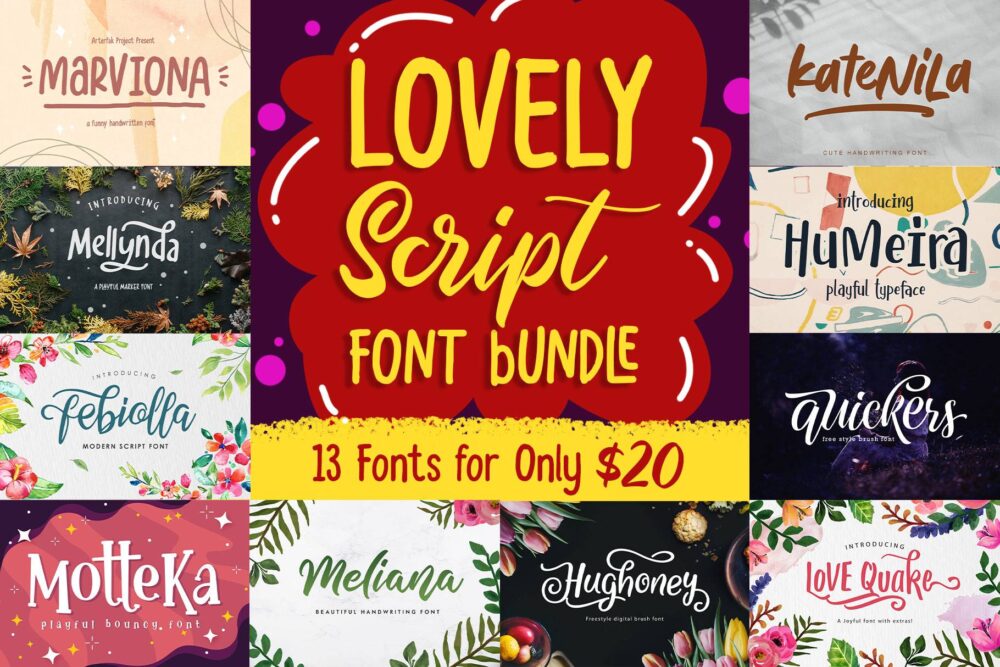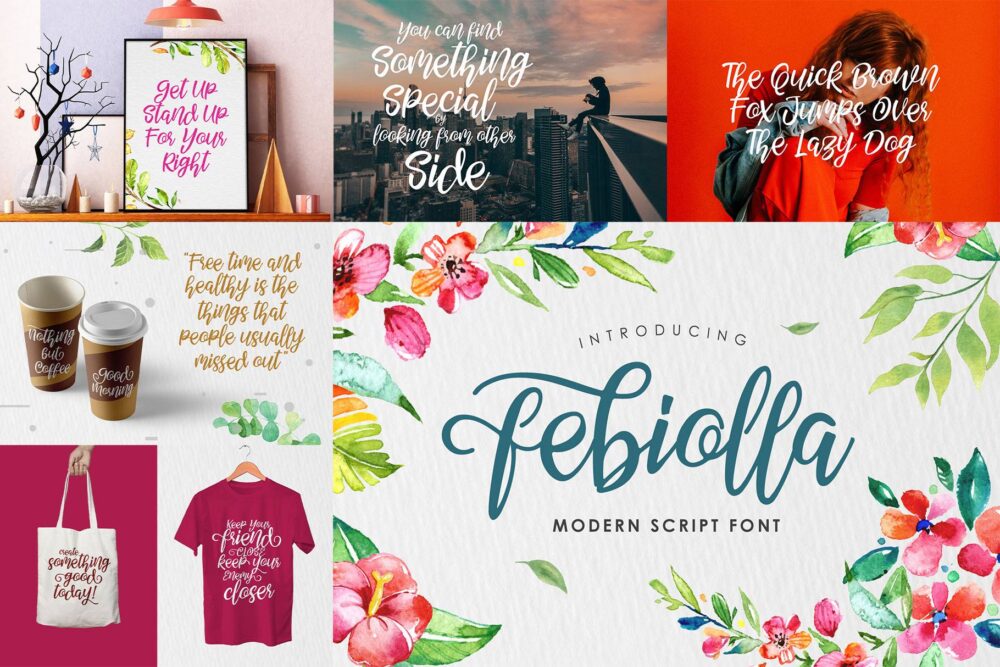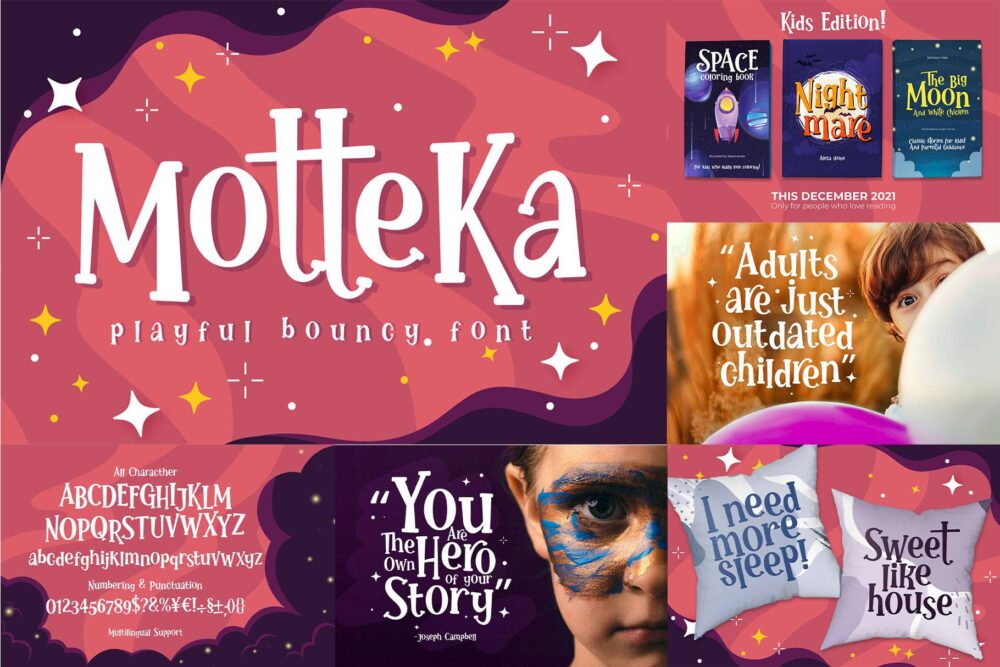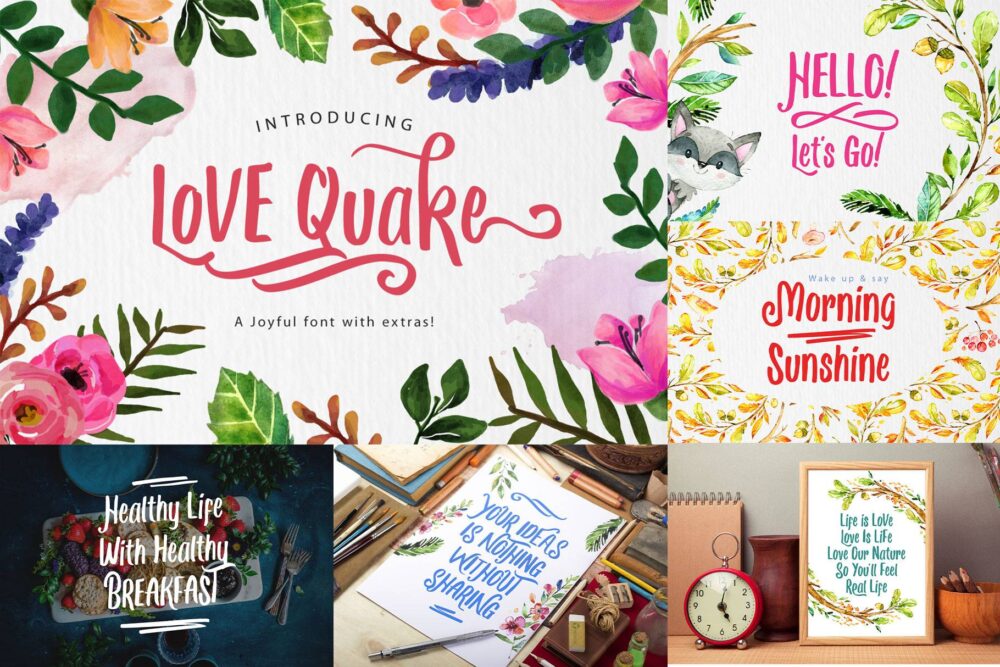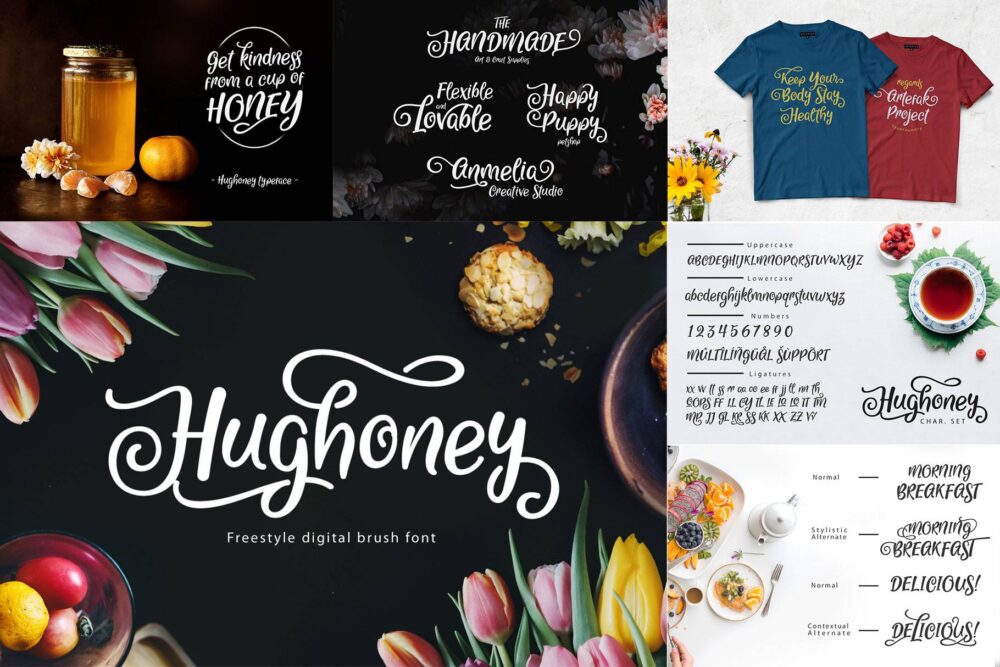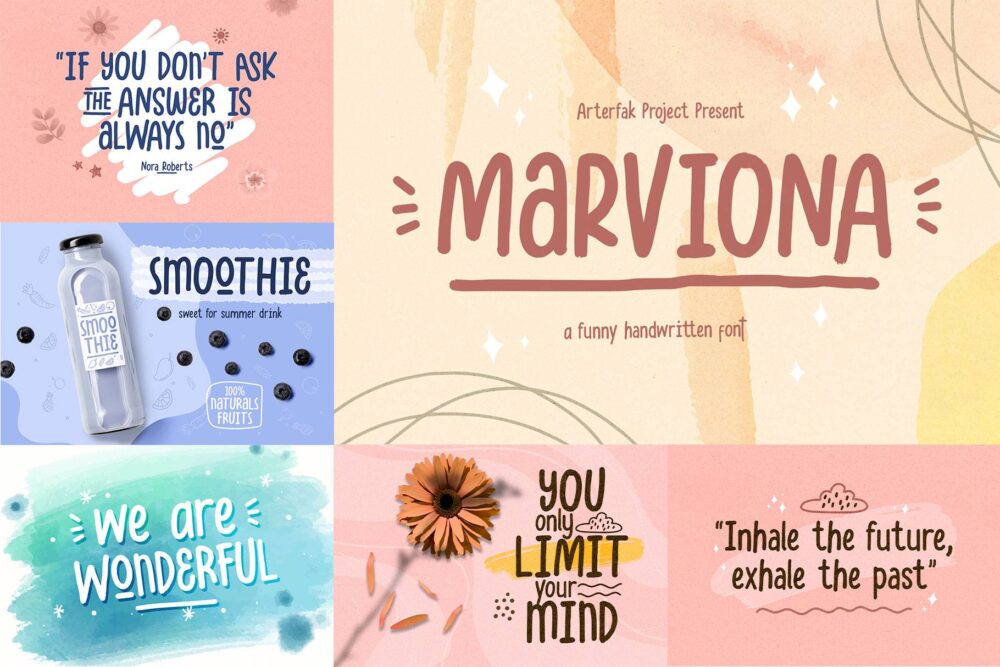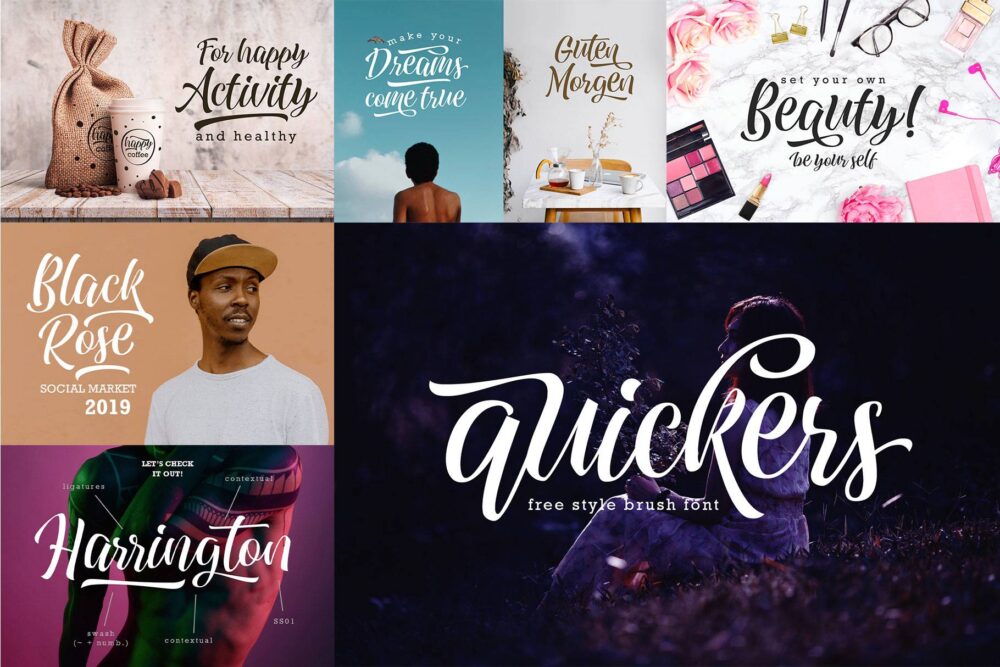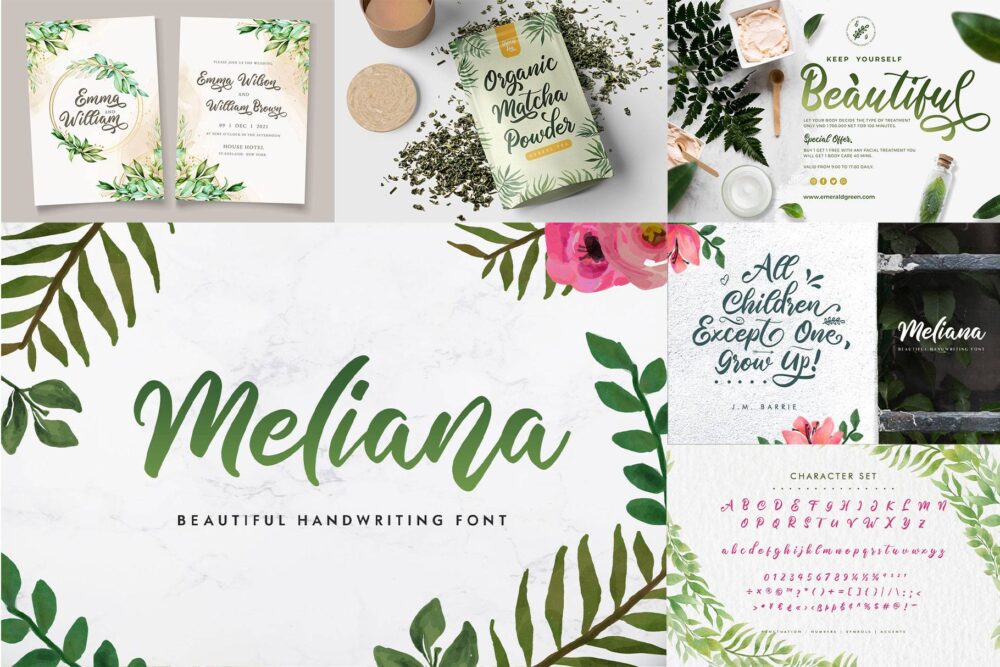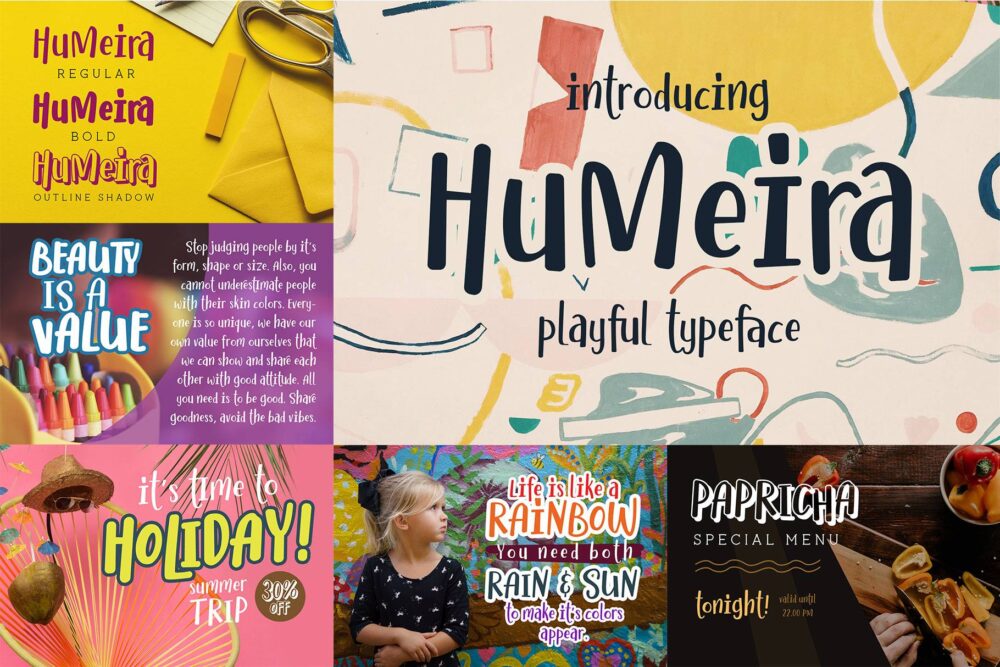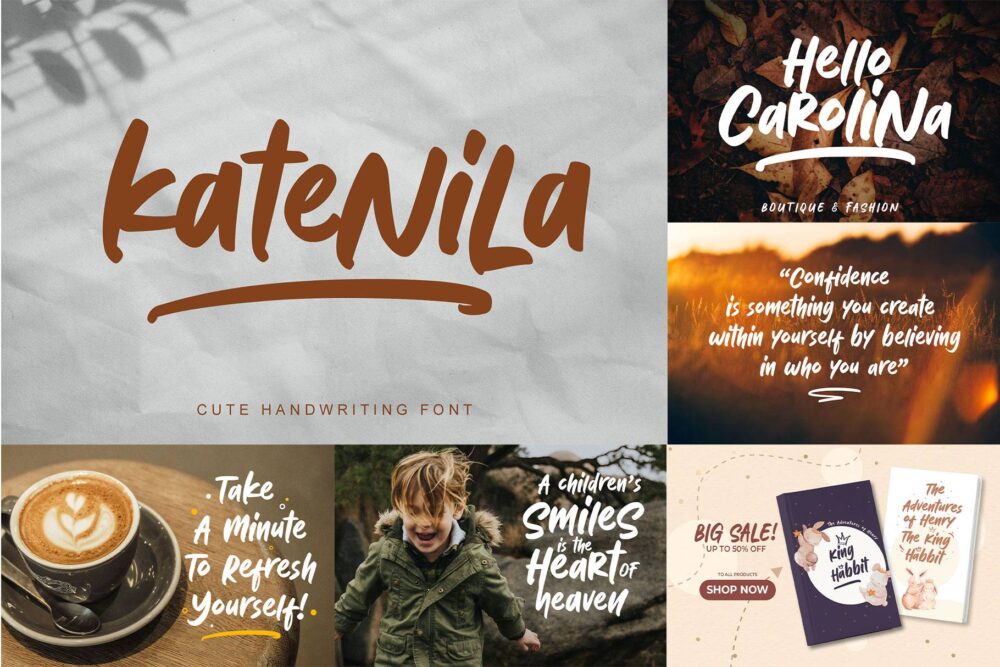
Introducing “Lovely Script Font Bundle”, A compilation of handwriting, cute, script, playful fonts. Some fonts are crafted traditionally from the hand-made brush that looks beautiful for your design project. You can use these fonts for many purposes such as logo, quotes, merchandise, poster, flyer, baby needs, t-shirts, labels, books, and many more! Packed including the OpenType features such as stylistic alternates, ligatures, and multilingual characters.
- Love Quake : https://arterfakproject.com/product/love-quake/
- Hughoney : https://arterfakproject.com/product/hughoney/
- Febiolla : https://arterfakproject.com/product/febiolla/
- Mellynda : https://arterfakproject.com/product/mellynda/
- Quickers : https://arterfakproject.com/product/quickers/
- Humeira : https://arterfakproject.com/product/humeira/
- Meliana : https://arterfakproject.com/product/meliana-script/
- Katenila : https://arterfakproject.com/product/katenila/
- Motteka : https://arterfakproject.com/product/motteka-bouncy-font/
- Marviona : https://arterfakproject.com/product/marviona-sweet-handwritten/